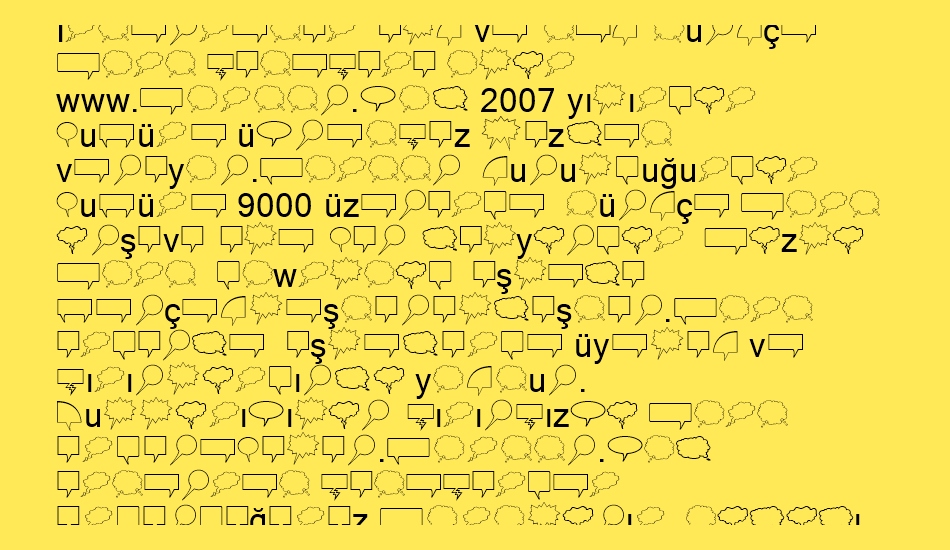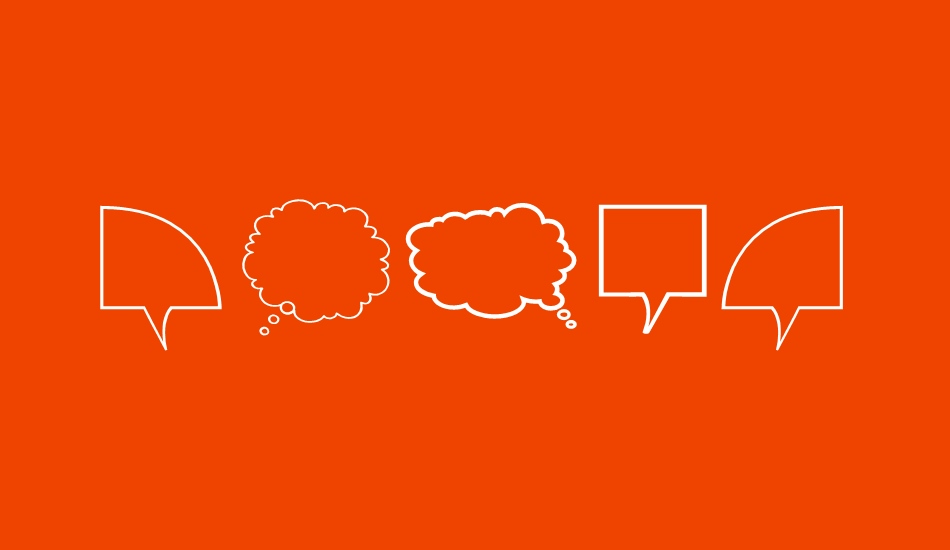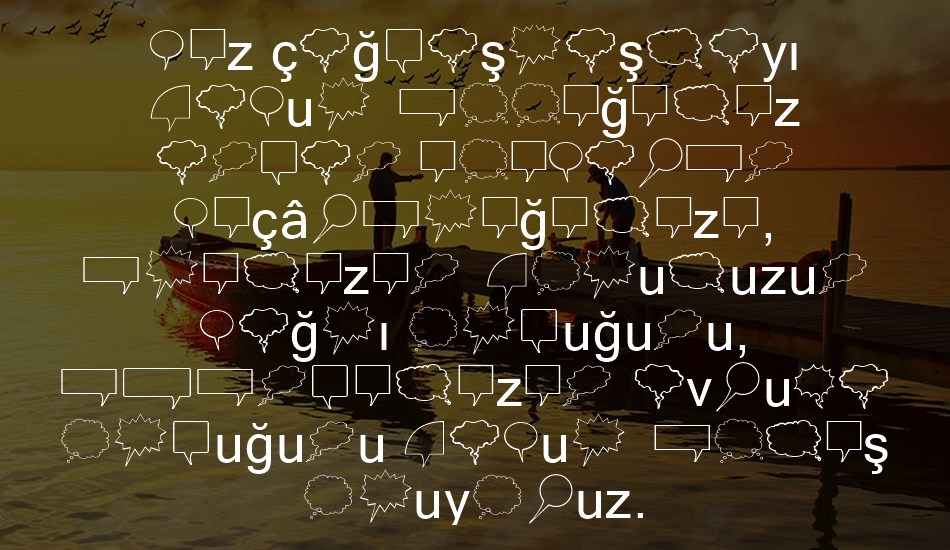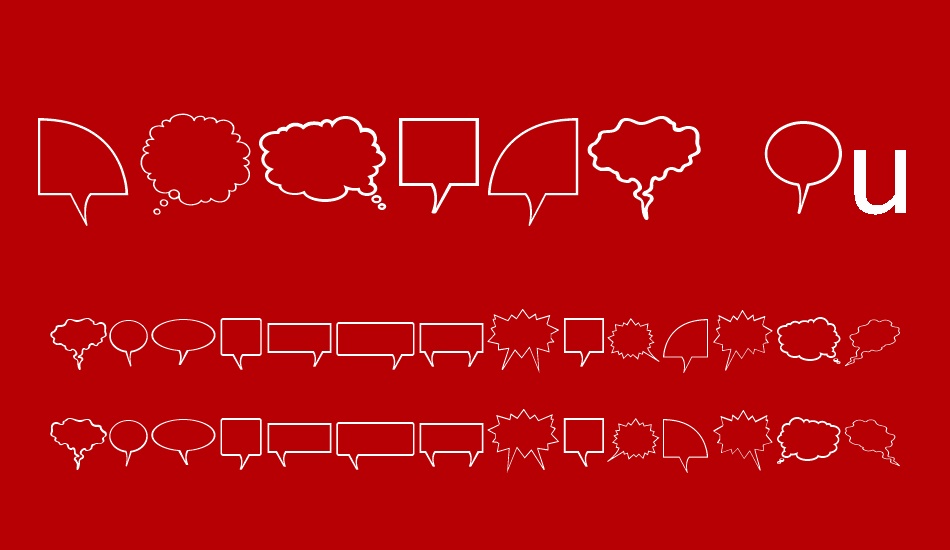
As of January 2000, there surprisingly STILL weren't enough quality freeware comic fonts out there to support the masses who couldn't (or didn't want to) buy Comicraft's and/or Ethan Dunham's commercial stuff. In fact, throughout the short history of freeware fonts, there's only been a handful of designers out there who were offering comic fonts. But as of January 2000, there weren't as many of them left out there. The only 3 freeware designers who were dedicating serious time to comic fonts were Nate Piekos, at Blambot, who is still releasing very nice comic letters (albeit with strictly Anglo character sets), Dan Zadorozny at Iconian, who still releases some interesting comic letters (also mostly incomplete character sets though), and Derek Vogelpohl, who came up with massive packages such as Action Man, Cartoonist Hand, Toon Time, Toon Time Extras, and Wonder Comic. All the other boys and girls seemed to have burnt out on the comics for some reason. Ray Larabie did one or two comic fonts a while ago, but from the fall of 1999 he seemed to have picked different routes for his font work. WolfBainX had a massive archive happening at his Vigilante Type site, but for the most part the comic kick he had was lost among his experimentation with grunge and swash, and the character sets were not complete at all, which made. A new name was sort of being thrown around freeware font circles: Dave Hyatt. Dave did a few cool ones, but nowhere near the quality we'd seen with Derek's stuff.
To make a long story short, most of the comic fonts out there were very English-oriented, which left the Italians, French, Spanish, Swedes, Icelandics, etc, out of the loop, and independent comics in those countries were still being lettered with Tekton or Comic Sans, which you probably agree can end up blanding things out after a while. I suspect Derek took some of that pain away from those folks.
Some time during January 2000, WolfBainX and I were yakking it up and I asked a question which I suppose ended up costing me too many hours of sleep to count now. The question was: "How about a complete comic lettering system for the folks out there, Wolfie?" I intended that question to be a prod at WBX, maybe a guilt trip to get him thinking about comic fonts again. But after talking it out with him for a while, we decided that he had enough diamonds in the rough on his site to actually start a formidable base for the massive project that I was proposing. From then on it was just me and my amusement. Shortly after that conversation, WBX and I finished up the lab's expansion of his Tribal font, but then he disappeared and I couldn't get hold of him since. The original Vigilante site went down about a month later, and because I was too busy with the lab, CybaPee, bless her heart, hosted the old Vigilante archives instead of me having to go through the trouble of doing it.
For the first time in a massive lab project since Republika, I somehow managed to stick to the original plan, though many times I built and demolished many fonts before always coming back to the original charts. The original plan was to have 5 10-font packs which would constitute a complete lettering system for the comic artist, whether professional, independent, amateur, beginner or whoever wants to use the stuff. The biggest worry for any comic artist in these digital days, when it comes to letters, is what goes inside the speech, narration and thought balloons. I took care of that with Komika Text, which is based on WBX's Sunday Komix letters. Then there are the titles and the cover type, of course. Those are accommodated with Komika Display and Komika Title, based respectively on WBX's Komixation and Supermarket Sale letters. To add variety and flexibility to the superset, 10 more fonts were added in a Hands set, all of which can theoretically be adequate substitutions for the text, display and title sets, depending on the application. These supposed "anternative" fonts turned out very nice, and in certain respects are even better than the main sets.
40 fonts later, I got down to the part that was the most fun. If you have ever picked up an old comic book and observed it closely, you may have noticed the one typeface that really stands out and is used only once throughout the whole work. Every comic book has one of those. It's where the artist's imagination shows most. Some of the old Flash comics had that beautiful logo that raised the whole book to a different level of komix art. Same deal with the old Spiderman and Superman stuff. Since the computers took over the letterer's job, that sort of thing is very scarce now, and most unique superhero types end up looking like a sports team's logo. That's of course bad news for the komix fans, but that's the way it goes. In fact, it may be a good thing when one considers that these are the kinds of touches that make the artists stand out from the digital assemblers. Anyone can grab a bunch of fonts and slap them on someone's drawings then call it a comic book, but not everyone can actually draw enough perspective from the drawings to actually base lettering on them.
At any rate, this was the problem I was facing: as much as I wanted to include something in Komika to help the artist/assembler with that sort of unique type that can stand out in its once-only use, I realized that I probably won't be of much help. No superset of anything would help the ones who cannot feel the drawings themselves. But to say that I tried, and for the sake of comprehensiveness, I included a Komika Poster set of 9 fonts that may or may not stimulate the imagination. The variety there includes letters that are cracked, sketched, treaded, spooked, discoed, and that sort of thing. Use these on covers and posters, but make sure that you're using them at 40+ sizes, otherwise you may be subjected to much snickering and eyeball rolling.
And the end of it was of course a font that includes some comic balloons for speech and narration and all that jazz. I actually don't recommend using these balloons (if you're a comic artist, you already know that trying to use pre-made balloons can be much more trouble than actually making your own), but I included them to give anyone who is beginning in the field an idea on how these things can look like. So thoughtful, am I not?
Another good thing about this Komika set that you now have is that it can accommodate many markets when it comes to language support. Even the 2 Swedish characters, 4 Icelandic characters and 4 Spanish/Portugese characters are all included in there. This is something that you will hardly ever find even in commercial comic fonts.
For the record: when I was a kid I loathed Lulu, Archie, and Asterix. My favourite comic books were Herg?'s Tintin series, Lucky Luke, Chevalier Ardent and Michel Vaillant. Gotta give it to the French when it came to gorgeous comic lettering back then. About a month ago I went to the French Centre here in Toronto and checked out some of the latest French comic books. I was disappointed. Everything is so computerised now. The clarity and distribution of the old komix just isn't there anymore. Rand would have a fit, I tell you. Nowadays it's adrenaline, testosterone, estrogen and starkness covering mediocre pop art intended to sell the moment. The world knows it very well too, I guess. There's a Tintin shop right off Market Street in San Francisco, where all the old French comic paraphenalia is priced like jewelry. Right across the street from that shop, there's a "collector's" comic book store that deal in post-1985 comics. The difference is quite clear between both stores, in quality as well as in price. Ah well. Here's to mediocrity and paying now for nothing. Milles tonnerres to Brest, as the Captain would say.